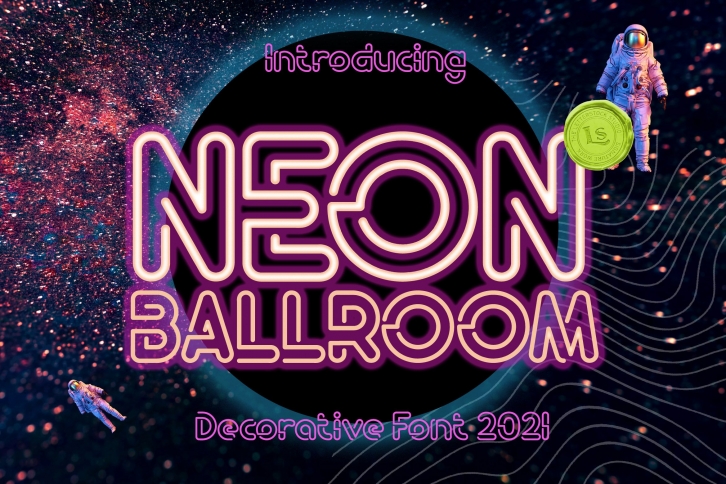
Neon Ballroom is a trendy and unique font with an authentic style. It was designed by Gumacreative and it's a great choice for creative people who need such a font. It was released on June 20, 2021 and the file size is 21.64 MB. Neon Ballroom will add an organic vibe to any design idea!